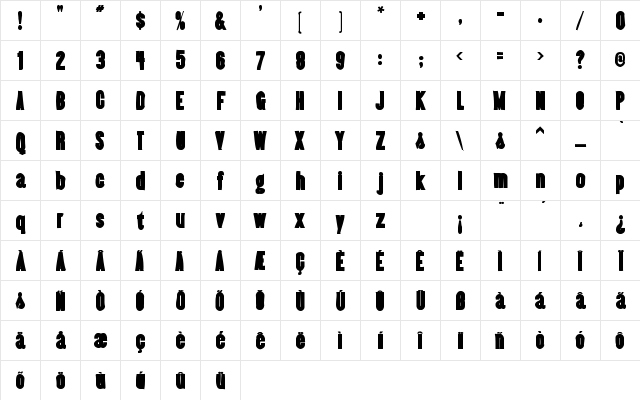
Almonte Ink Regular Free Font
Almonte Ink Regular
Design Context for Almonte Ink
Almonte Ink is a composed and adaptable typeface that performs quietly and consistently across a wide range of design contexts.
Pro Tip: Use Almonte Ink in both headline and body roles to test its range before committing to a single application.